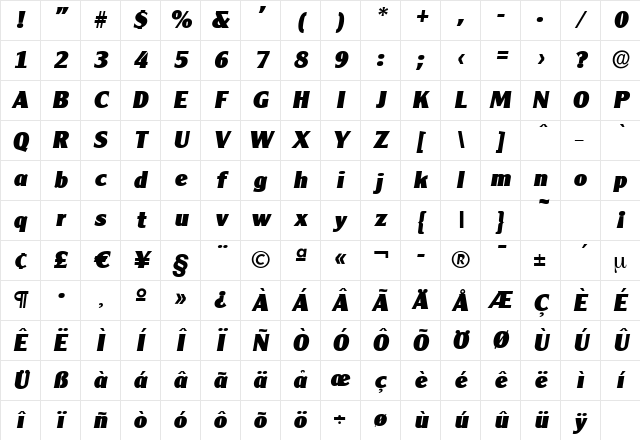
AlexanderBecker-Heavy Italic
Complete AlexanderBecker-Heavy Italic glyph index. Displaying only characters natively supported by AlexanderBecker-Heavy Italic font.
Design Context for AlexanderBecker-Heavy
AlexanderBecker-Heavy is a composed and adaptable typeface that performs quietly and consistently across a wide range of design contexts. The slanted form adds forward momentum and visual energy.
Pro Tip: Use AlexanderBecker-Heavy for emphasis, pull quotes, and subheadings where its slanted energy can add rhythm to the layout.